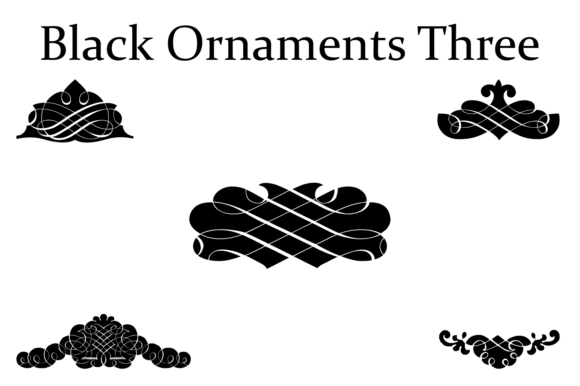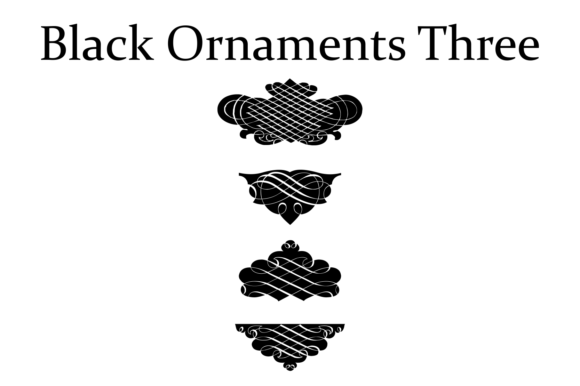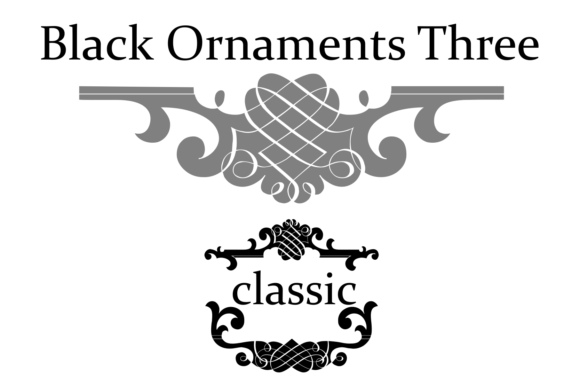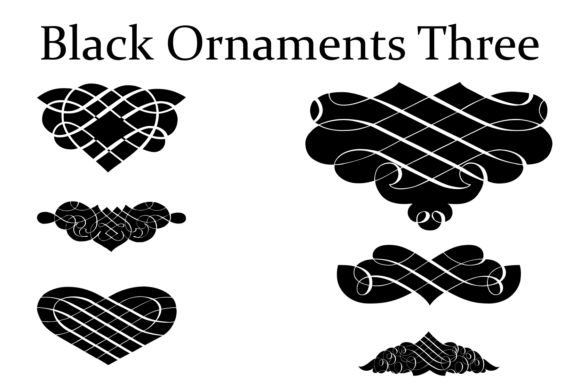
Introduction to Black Ornaments Three Font
The black Ornaments Three is part of a family of ornament/dingbat fonts, inspired by the CalligraphiaLatina font series.
It’s excellent for use in editorial works of art and publishing, book covers, headpieces, packaging, magazines much more .